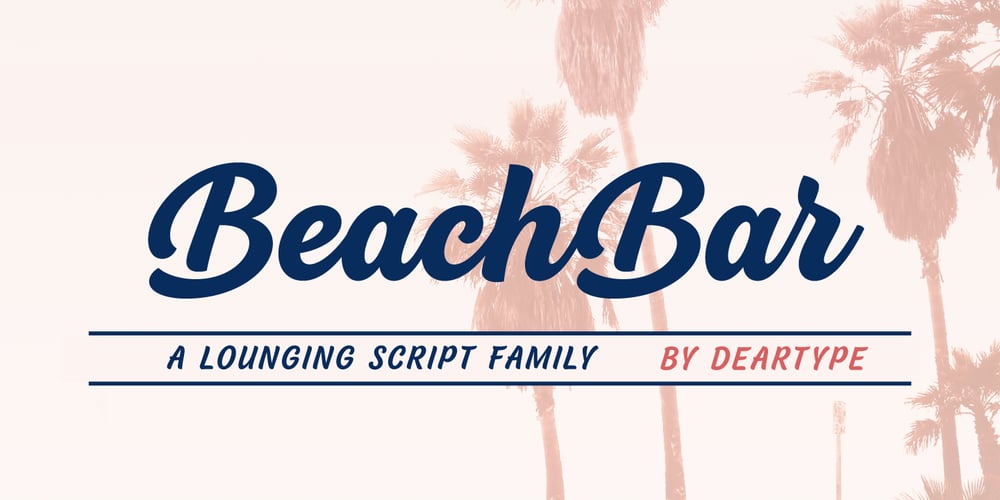
BeachBar
BeachBar font
BeachBar Font Family was designed by Veneta Rangelova and published by DearType. BeachBar contains 18 styles and family package options. BeachBar is a modern bold script with a sunny mood. It is inspired by, well, Beach bars, the summer and the sea, the hot afternoons with a cocktail in your hand and the sound of splashing waves. Beachbar turns our love for summer into a dynamic and vivacious font that comes in three different styles to choose from: BeachBar (connecting small letters, disconnected basic caps, ideal for text), BeachBar Alt (all letters are disconnected) and last but not least BeachBar Script (connecting letters, script-like caps and a bold set of swash capitals for more eye-catching designs). All three styles come in six weights making the font versatile and useful both for web and print; think websites, posters, menus, logotypes, cards, signage, packaging and whatnot. BeachBar is friendly, sturdy and it makes a statement, but most of all, it is fun to play with.